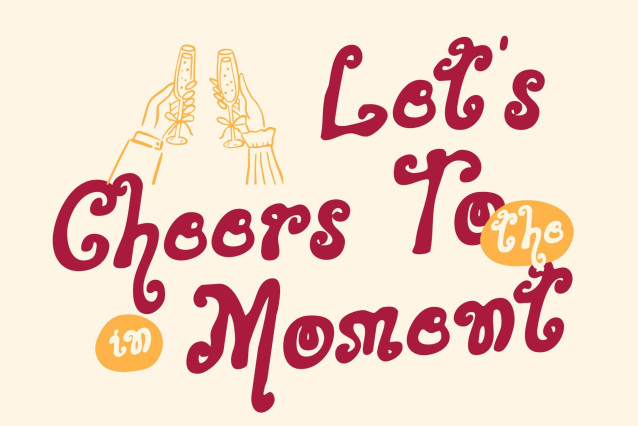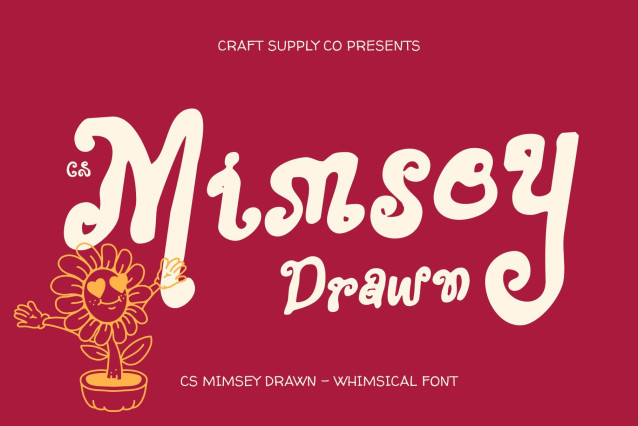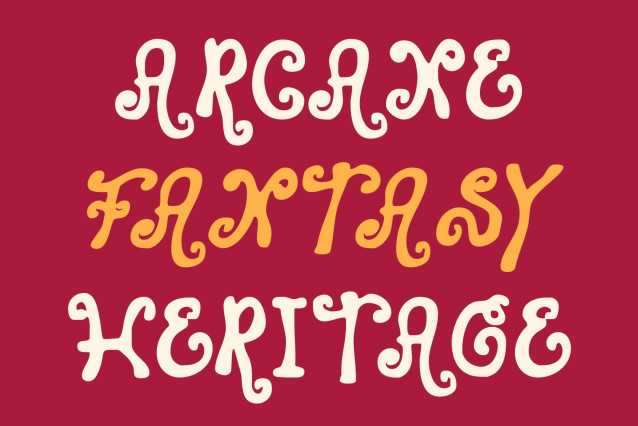
CS Mimsey Drawn Font
CS Mimsey Drawn Font – This font transforms decorative display design into a whimsical, hand-crafted masterpiece. Its curved letterforms are imbued with subtle drawn textures, giving each character a lively, handcrafted personality. The intricate, fantasy-inspired details feel both playful and magical, creating a typeface that captivates the eye and sparks imagination.
Enchanting Shapes for Storytelling Design
The whimsical, hand-drawn curves bring a storybook charm to every letter. Each character seems to dance across the page, making it perfect for children’s books, fairy tales, educational projects, and any creative design that seeks to tell a narrative visually. The drawn effect adds warmth and a tactile, artistic quality.
Fantasy Details with Artistic Flourish
Decorative etchings, subtle irregularities, and fantasy-inspired accents give the font depth and visual intrigue. These handcrafted touches make this font stand out in posters, branding, or editorial layouts, offering an expressive, imaginative flair that feels unique and enchanting.
Perfect for Magical Branding and Creative Projects
From whimsical branding and merchandise to invitations, social media graphics, and playful digital media, this font brings personality and charm to every design. Its blend of artistic textures, hand-drawn fantasy, and decorative elegance makes it ideal for designers who want to inspire wonder and delight with every word.